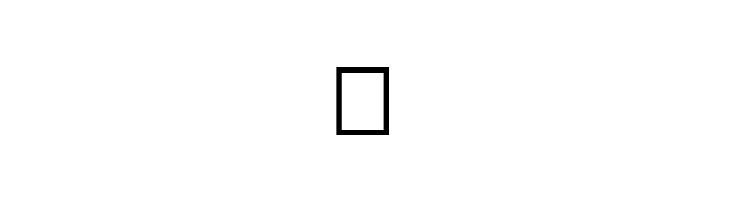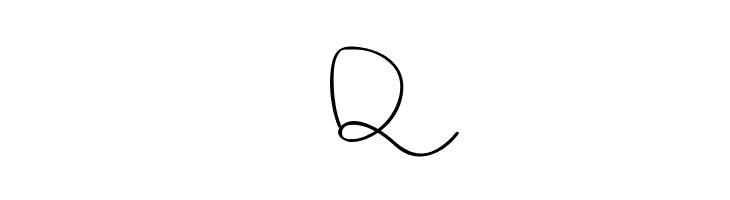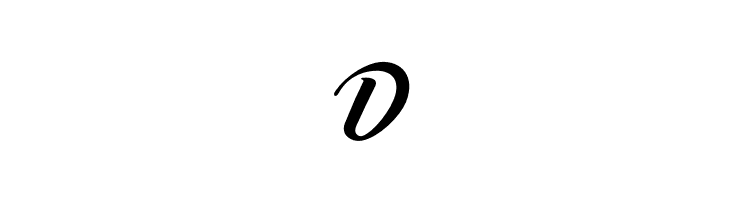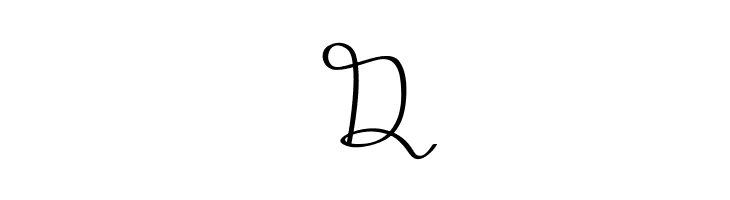
A modern, clean font with uniform stroke width and geometric shapes.
A modern, thin, and minimalist font with clean lines and a sleek appearance.
A playful handwritten font with a whimsical and fluid style.
A whimsical and decorative font with swirling, interconnected strokes.
A flowing, elegant script font with interconnected letters and bold strokes.
An elegant, flowing script font with intricate loops and swirls.
A graceful script font with flowing, cursive strokes and elegant flourishes.
A fluid and elegant handwritten font with smooth, flowing strokes.